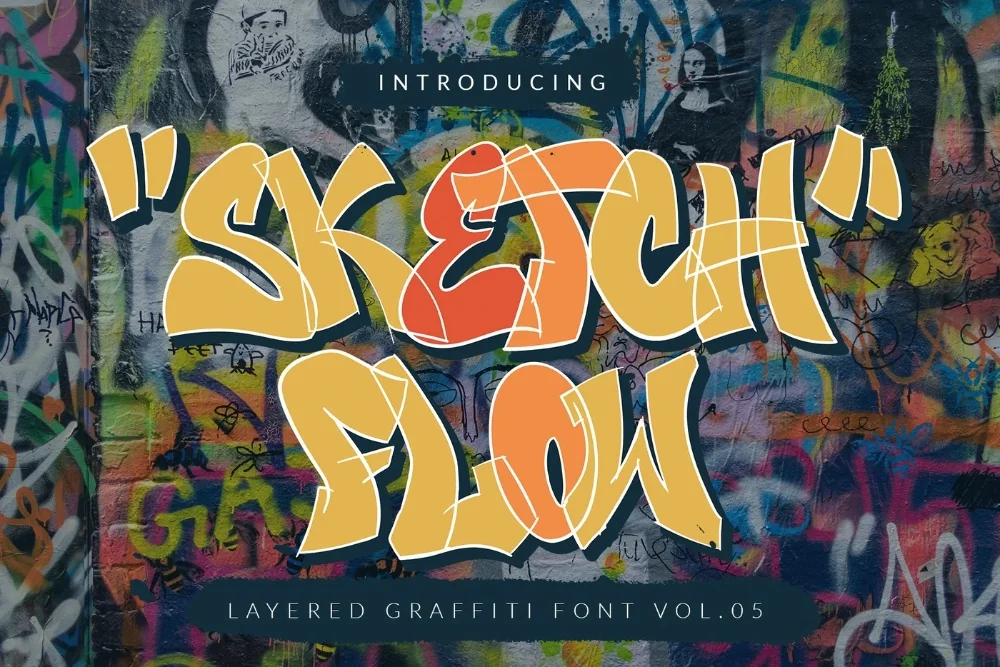
Sketchbook Flow Lettering Font
A sketch lettering font lives or dies on how it behaves at real sizes, and this one has been tested at both extremes. Loose practice-page lettering with all the working lines left in. Feels like a page torn straight out of a blackbook.
Some characters carry a faint double line where a stroke was redrawn, and the letter angles vary the way handwriting does. It looks best set at larger sizes where those details survive.
Made for zine covers, mood boards, journal prints, and behind-the-scenes style social posts.
It reverses well out of dark backgrounds, which is worth remembering if the artwork is heading for a black shirt or a night-time photograph.